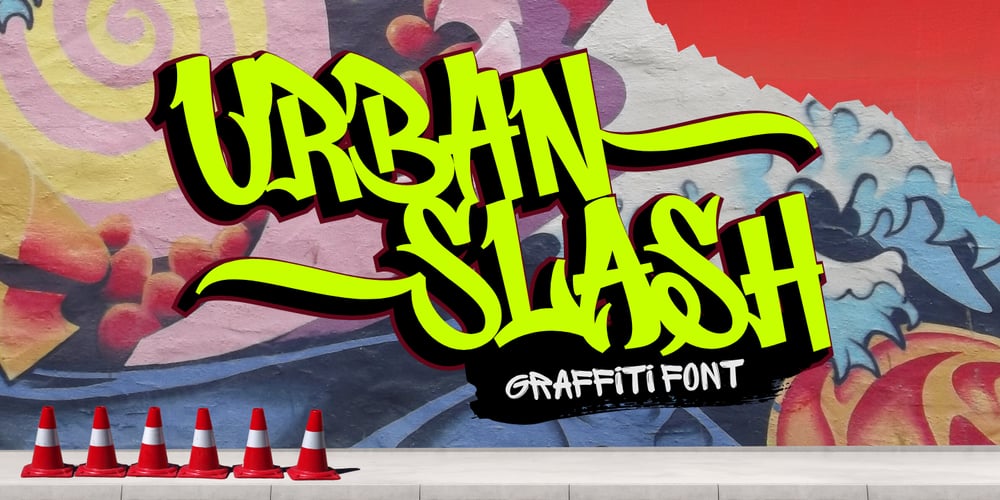
Urban Slash Font Family was designed by Muhamad Yusron Billah and published by Sronstudio. Urban Slash contains 2 styles and family package options. Urban Slash is a bold and edgy graffiti font that captures the essence of street art. With its sharp lines and urban vibe, this font is perfect for posters, logos, apparel designs, and projects that need a rebellious, creative touch. Make your designs stand out with Urban Slash!Included:- 2 Style : Regular & Extrude- Swash Alternates- Numeral & Punctuation- PUA Encoded- Multilingual support- Simple Installation- Work both on Mac and WindowsThank you very much 🙂